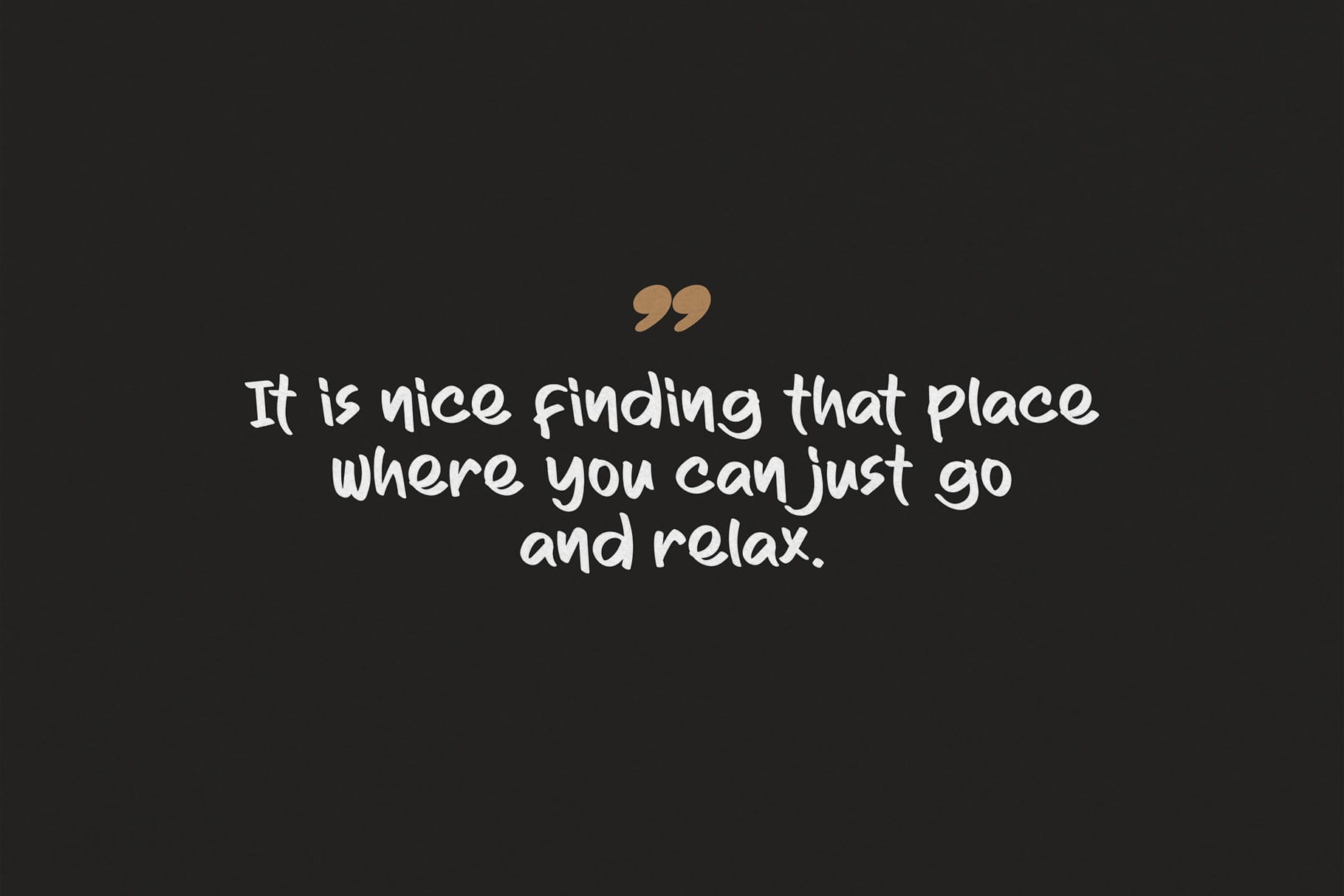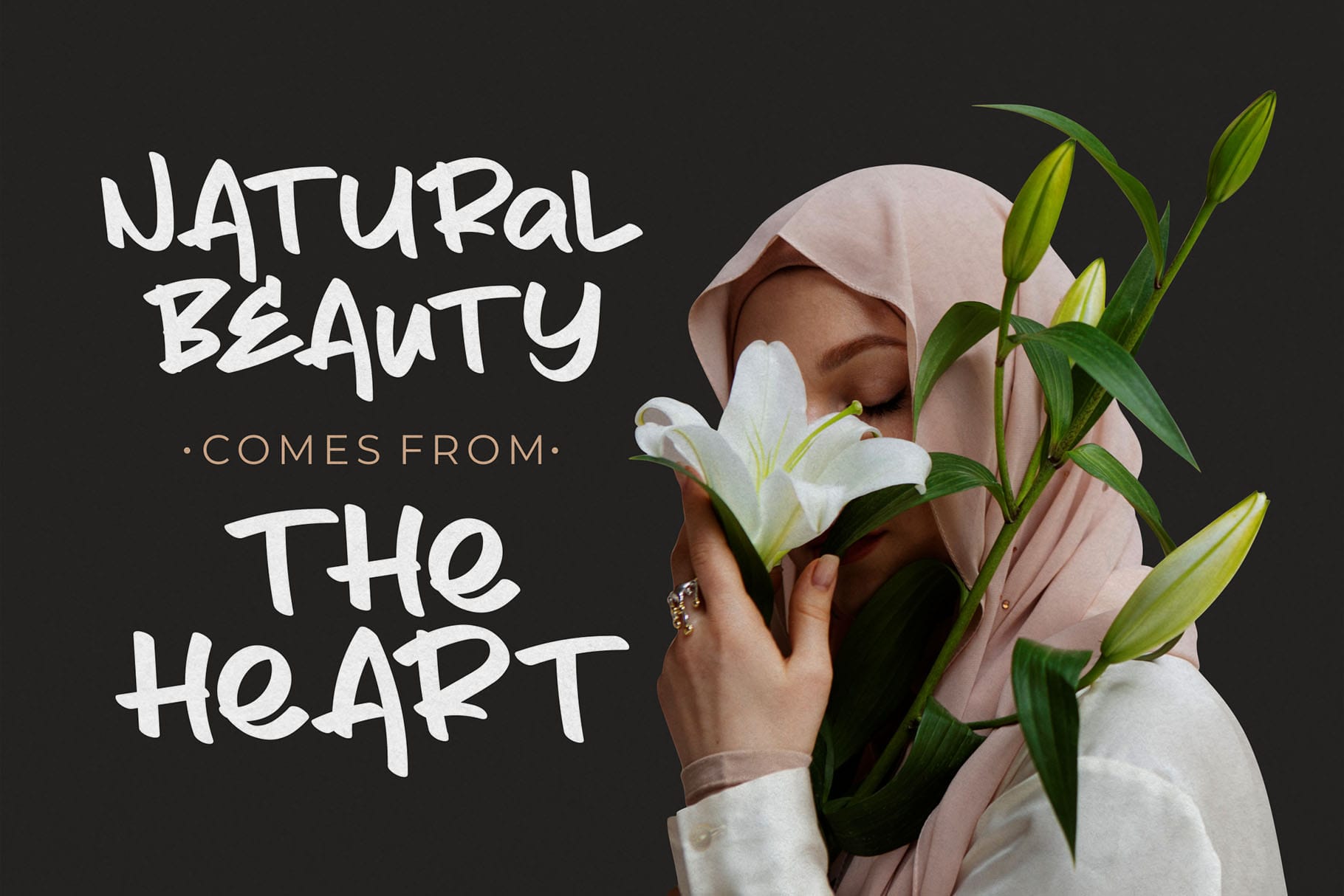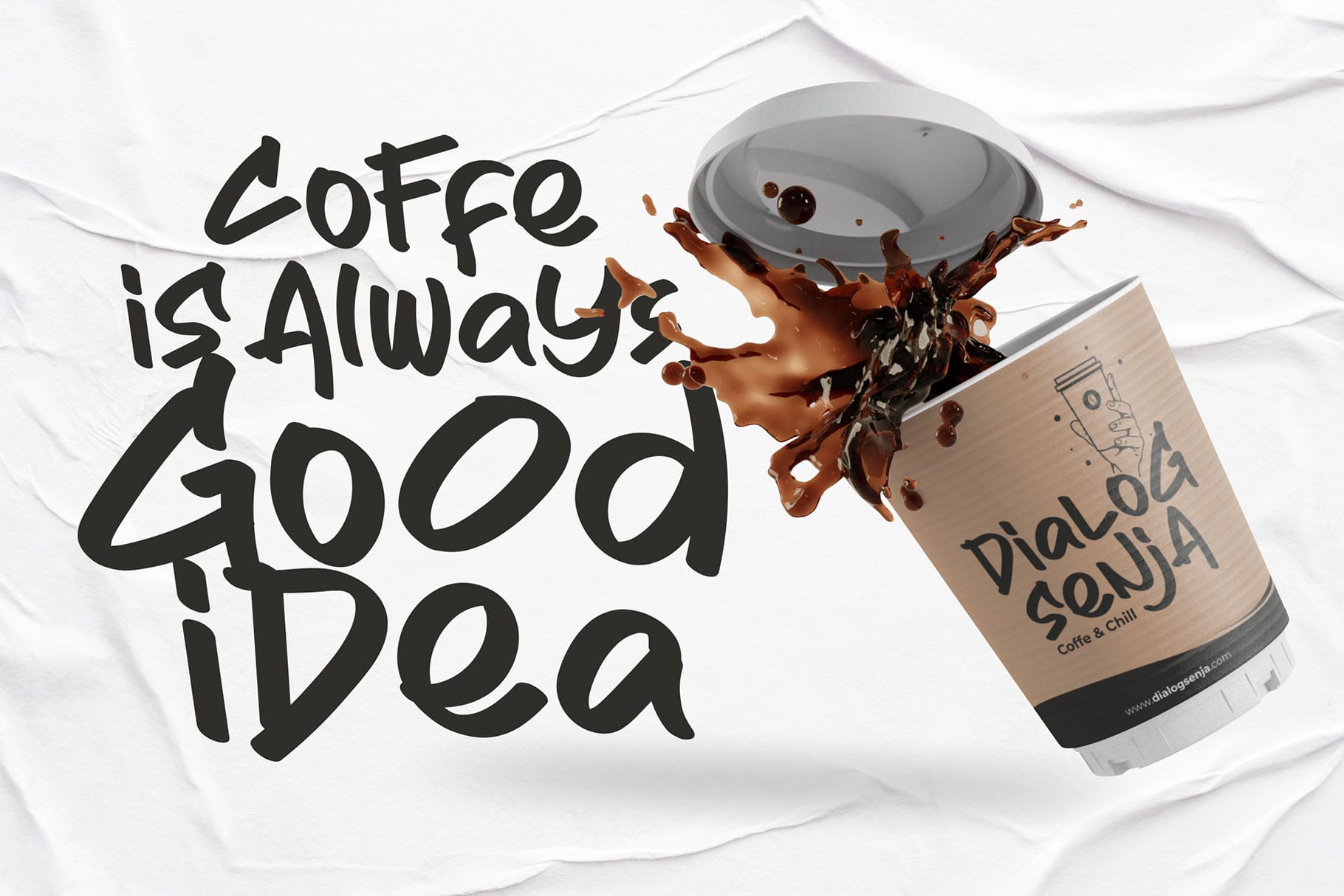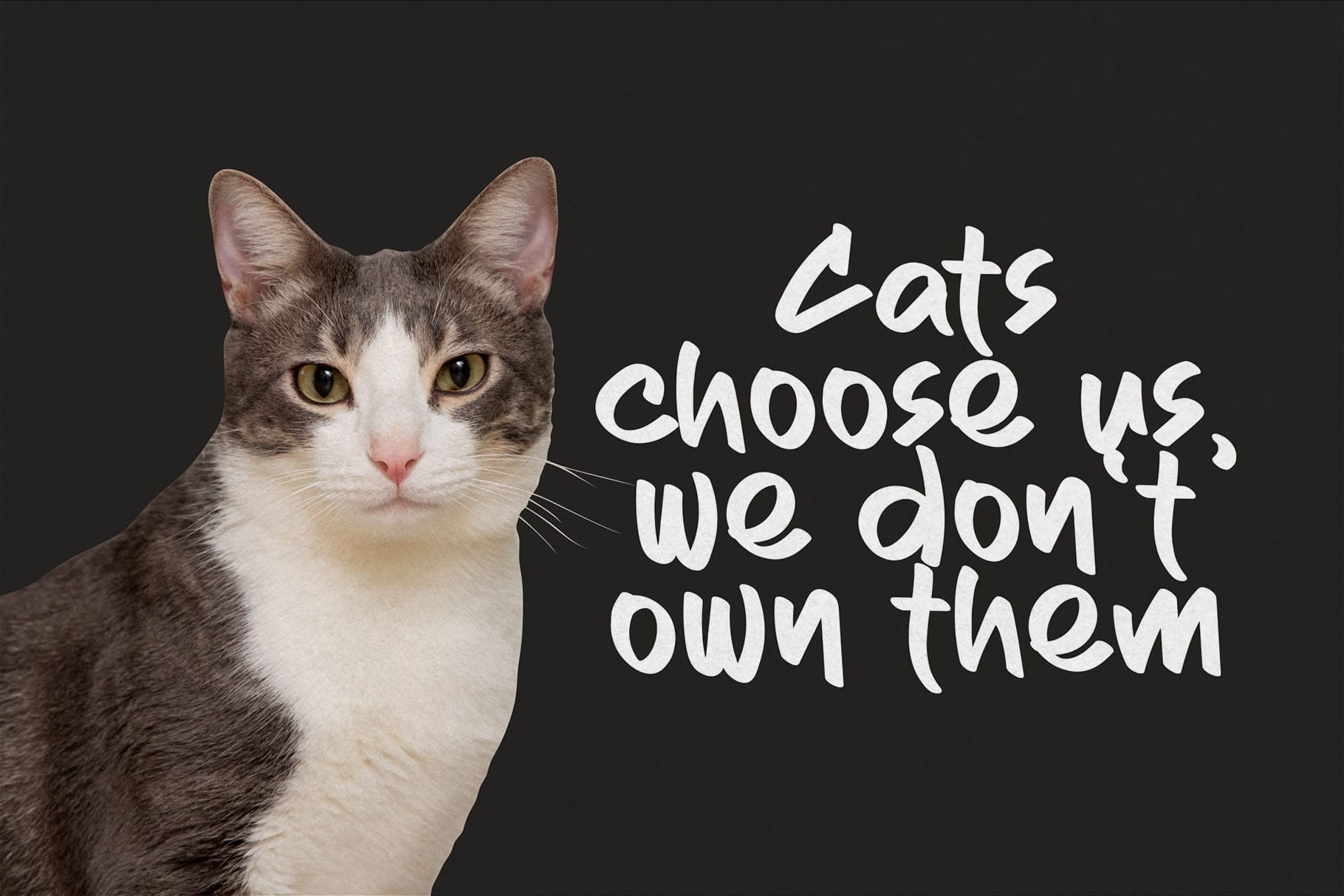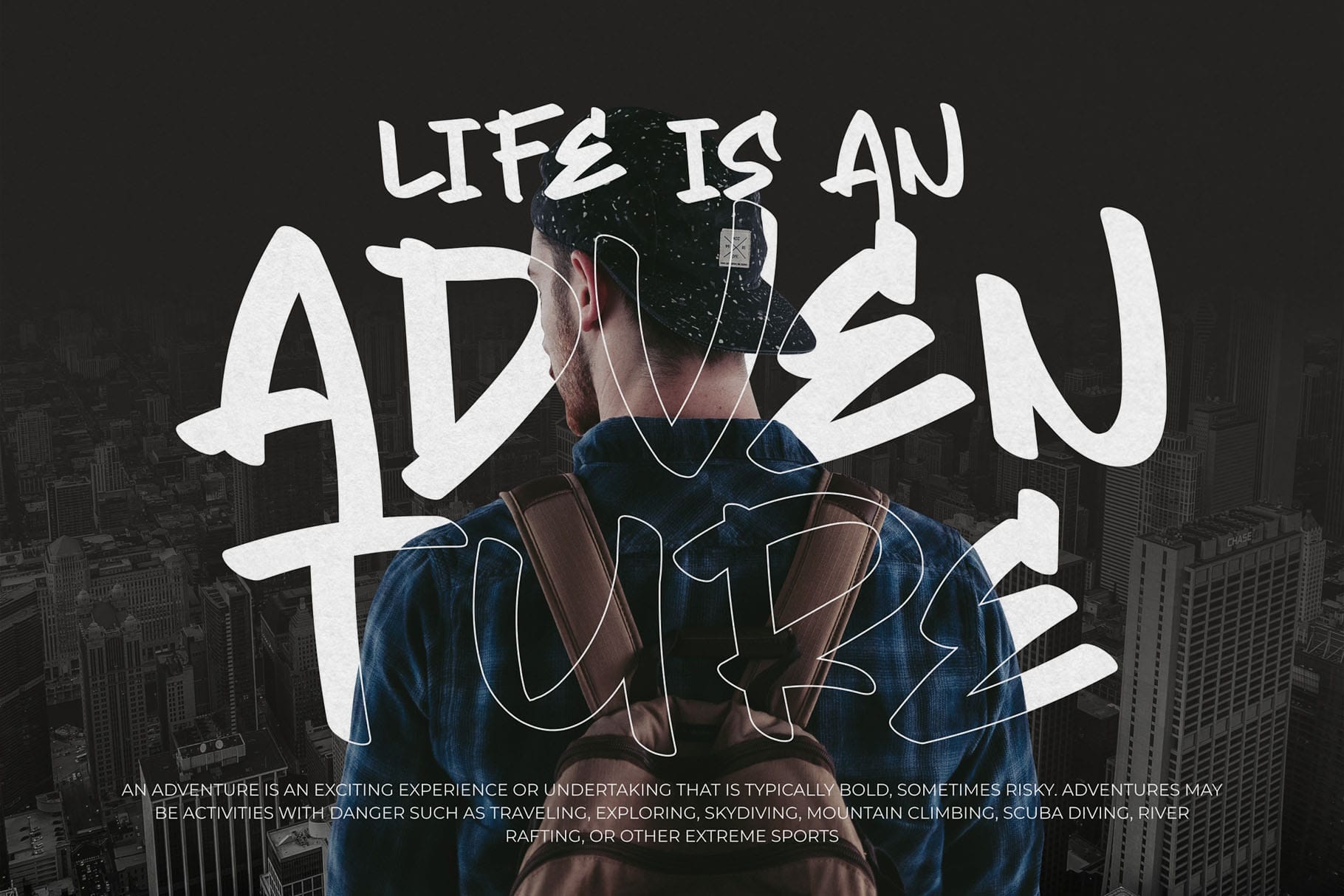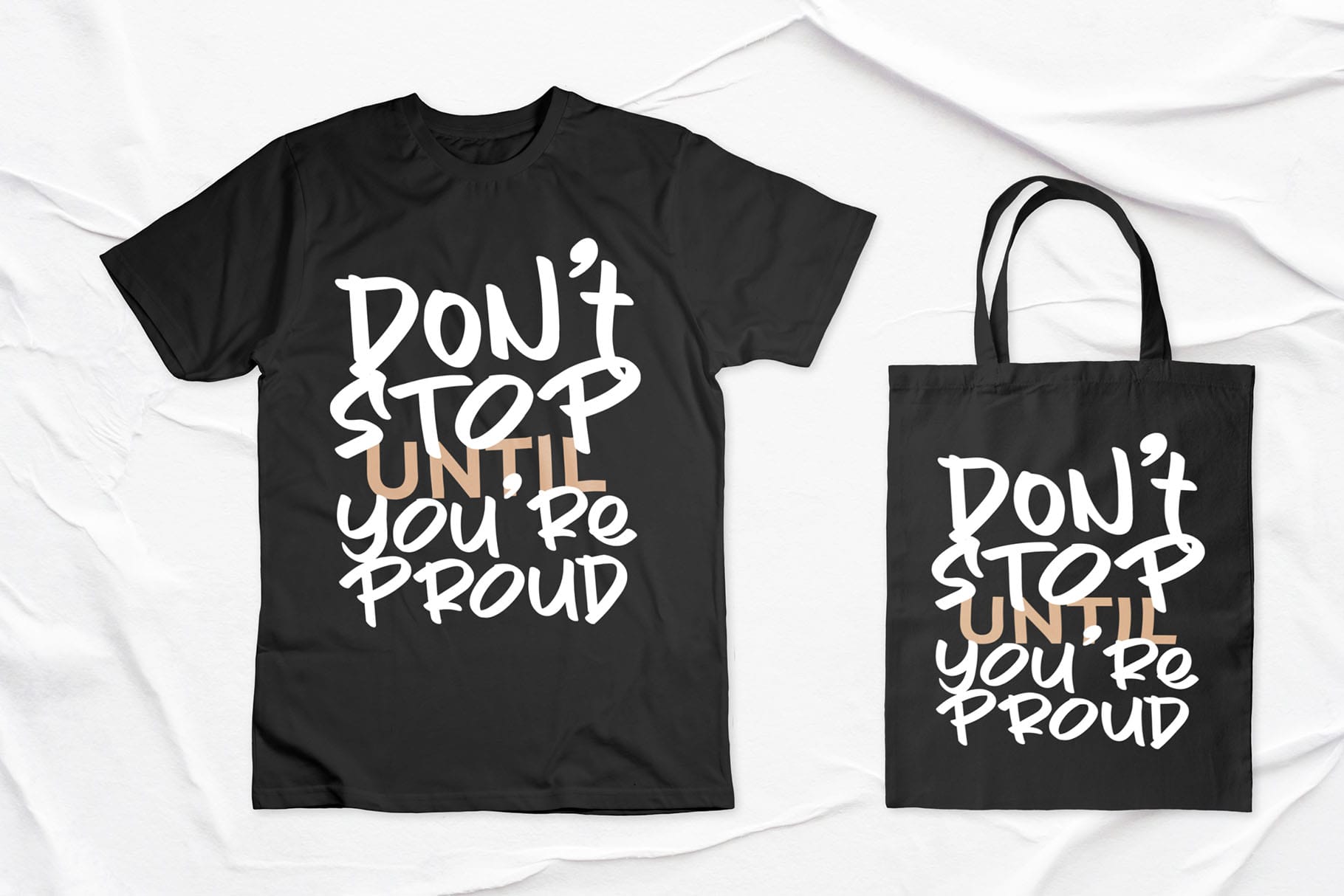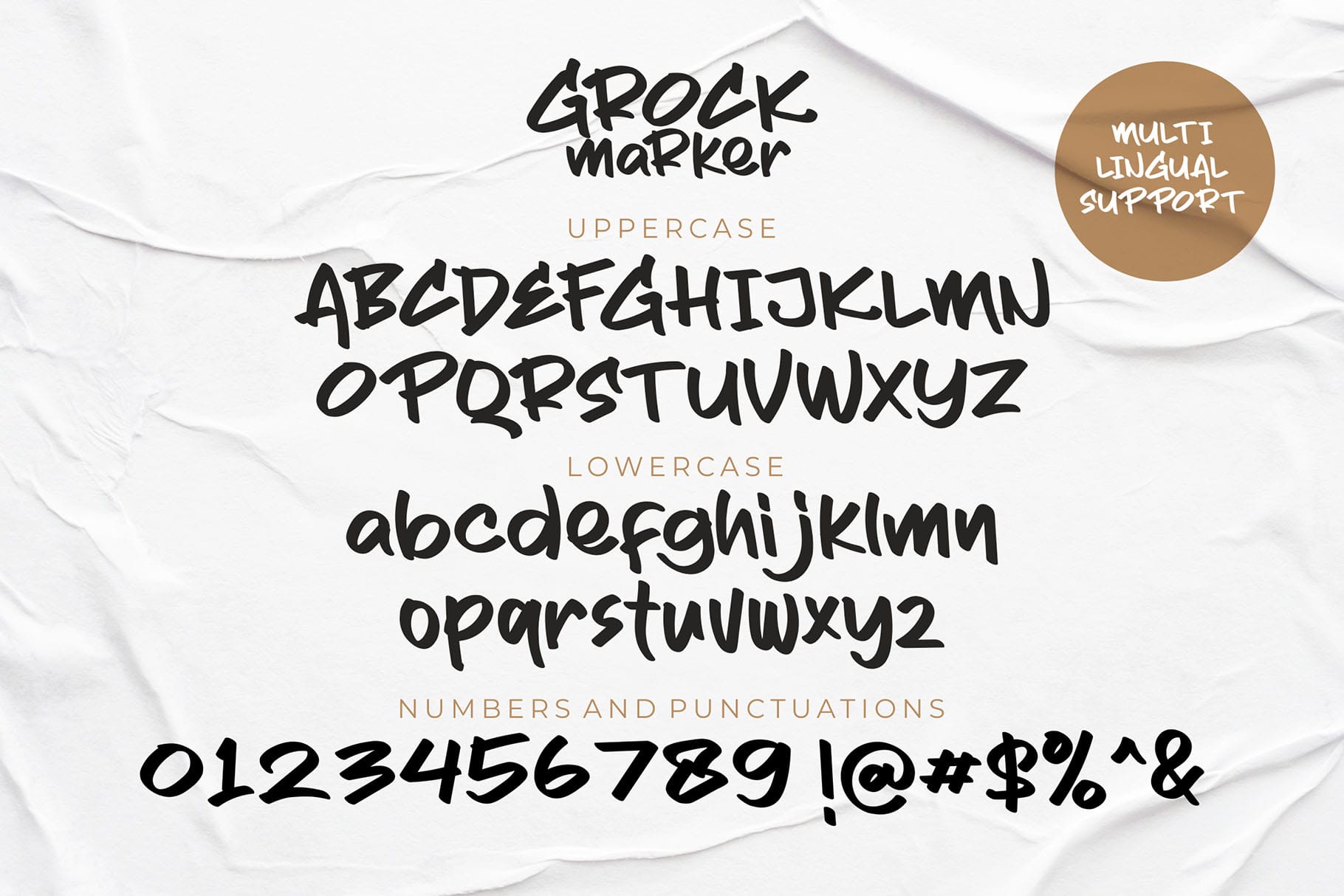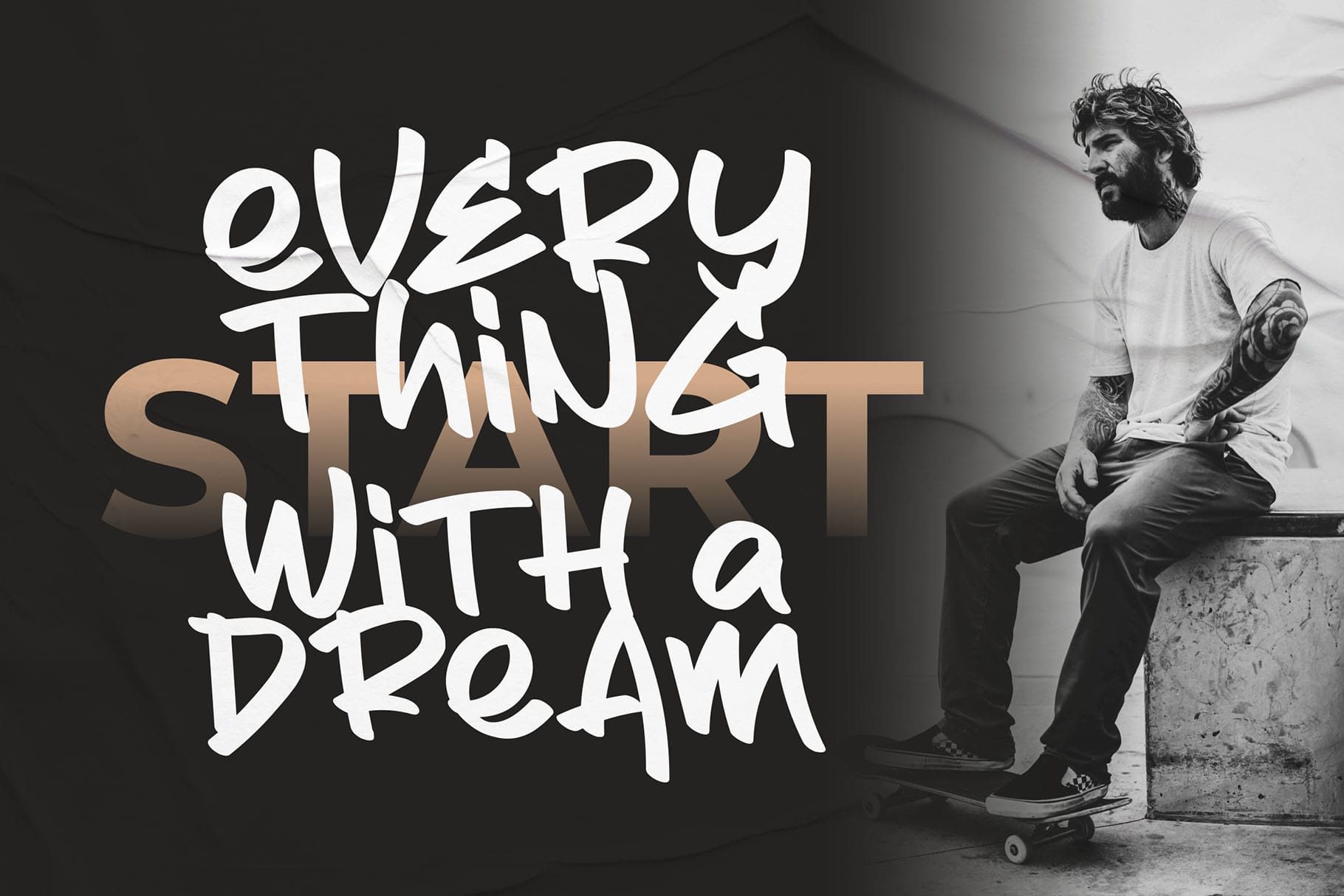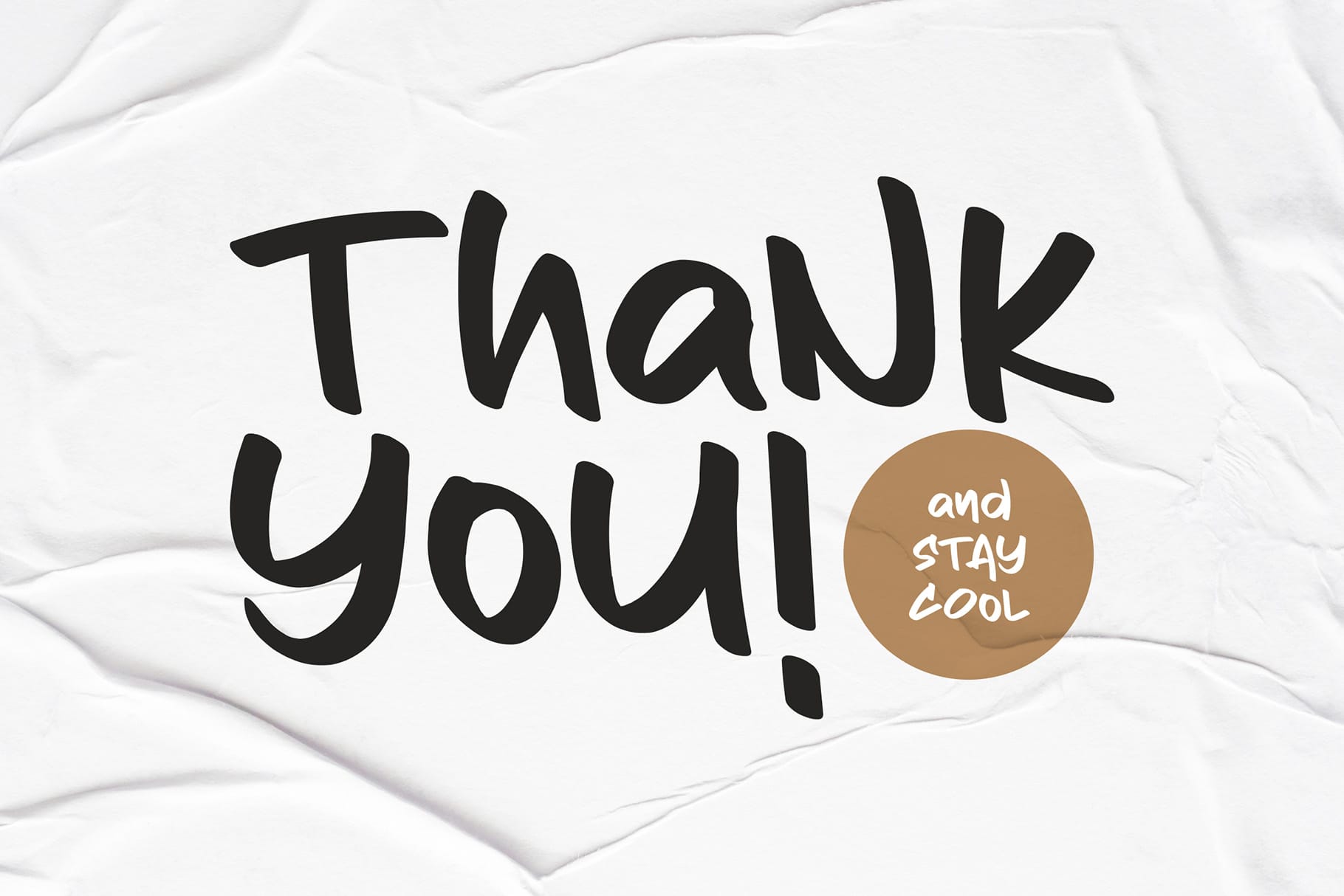
Grock Marker
Grock Marker is a Stylish brush marker font. Made in combination with hand lettering, it comes with dramatic movement and it’s great for any next creative project that needs a handwritten and natural touch.
It is ideal for logos, handwritten quotes, product packaging, header, poster, merchandise, social media & greeting cards.
• Versatile for branding, headline, or printing product
• Detailed dry brush markers